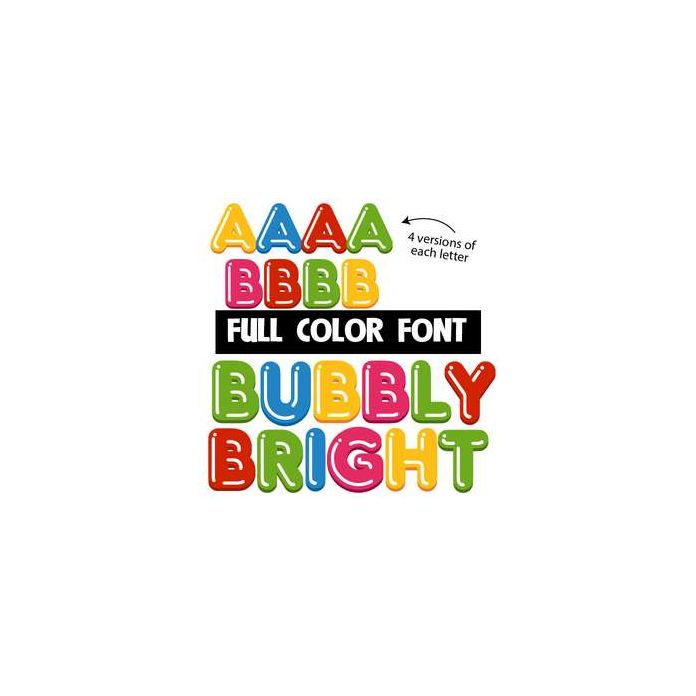
This full-color font features shine marks on bubbly letters. This font works best for titles, displays, posters and more. Please note color fonts will show as black in non compatible programs. This font type is compatible with Silhouette Studio.